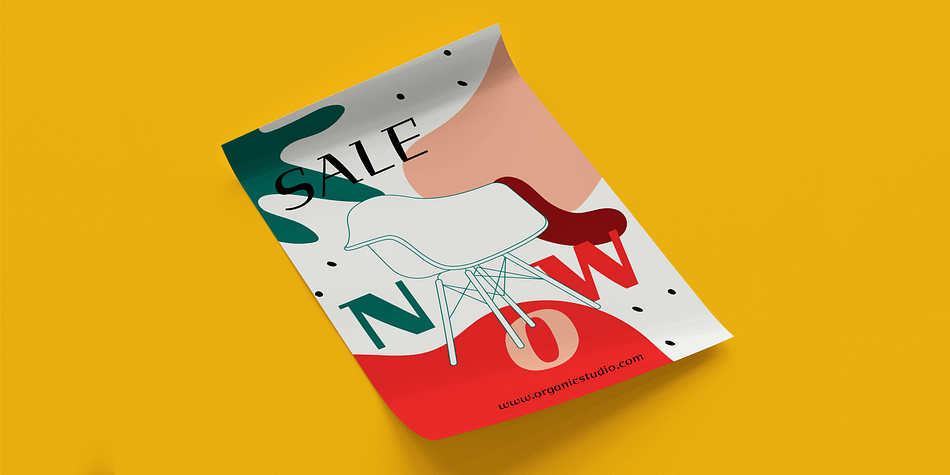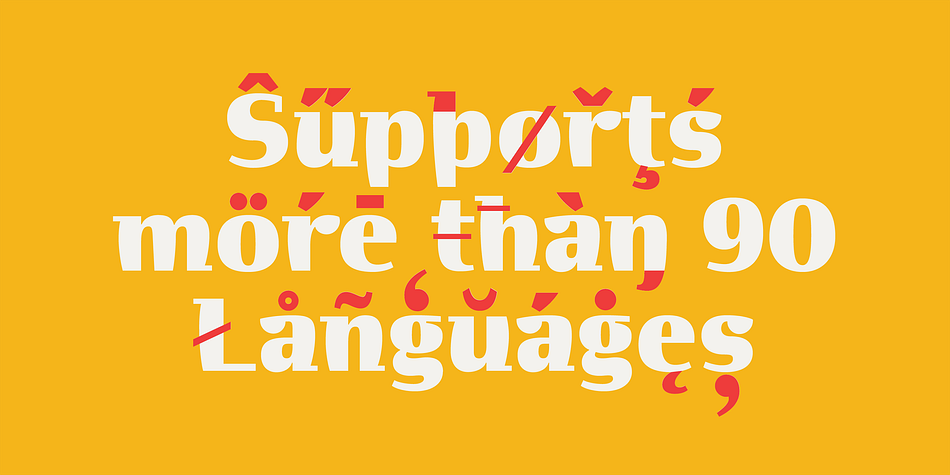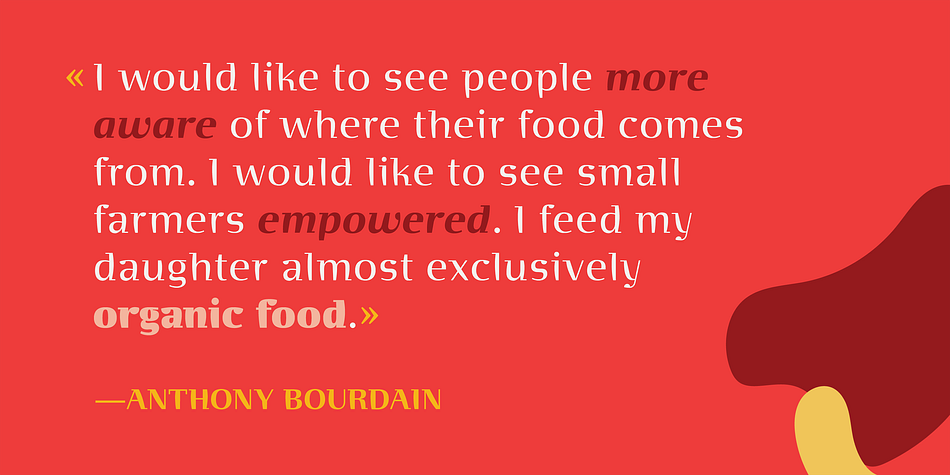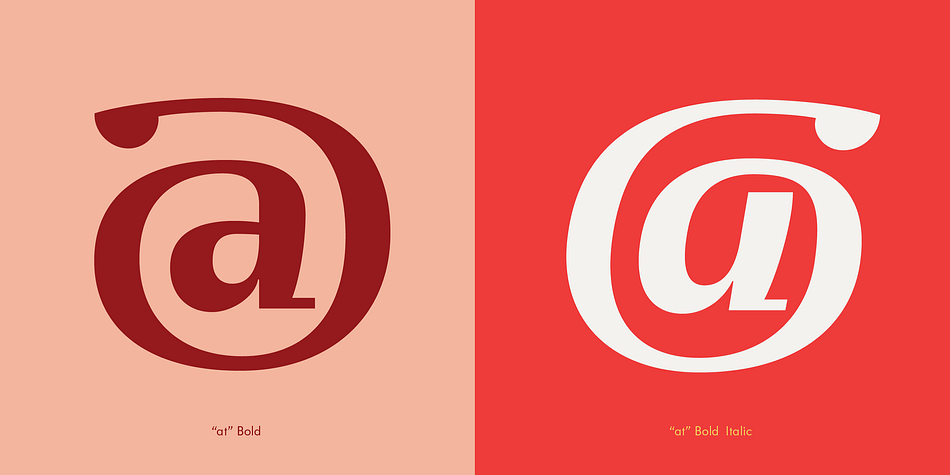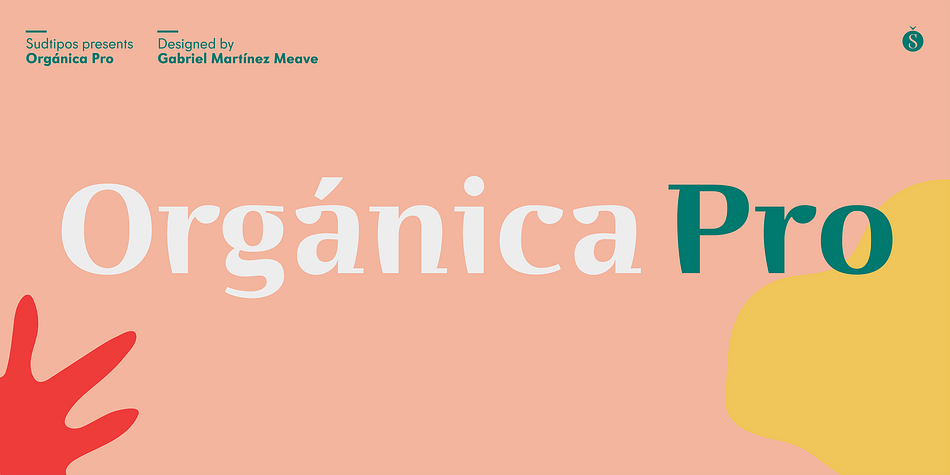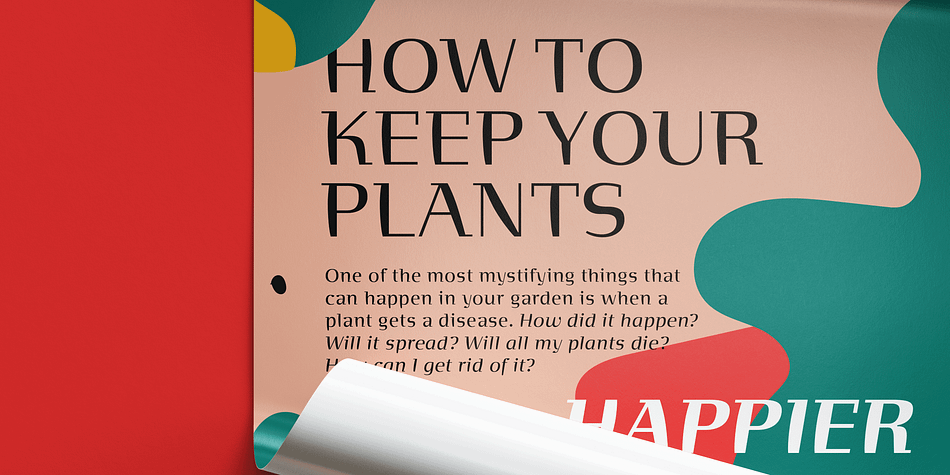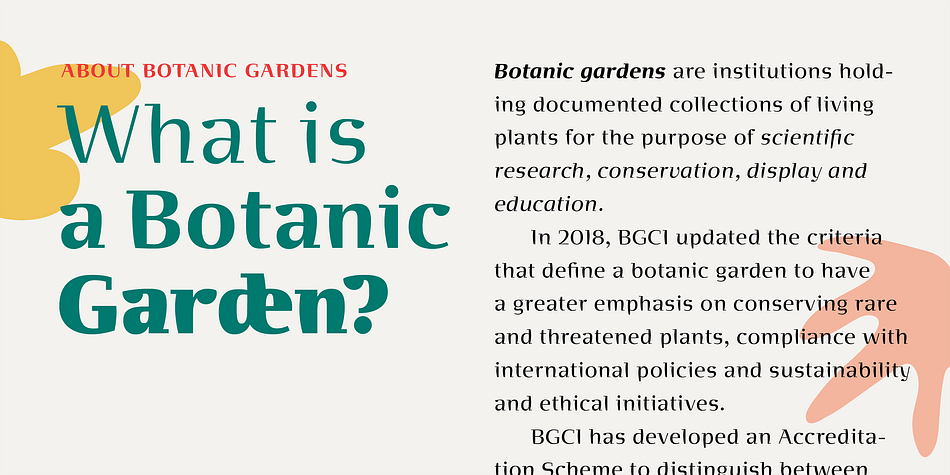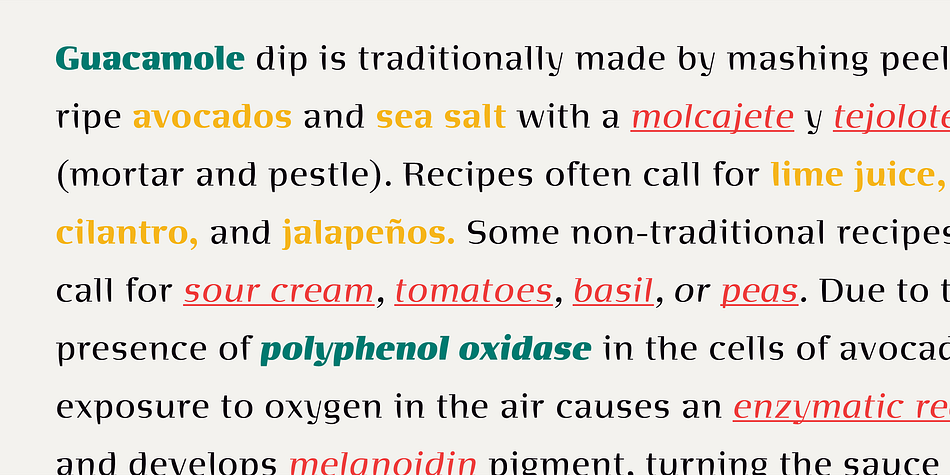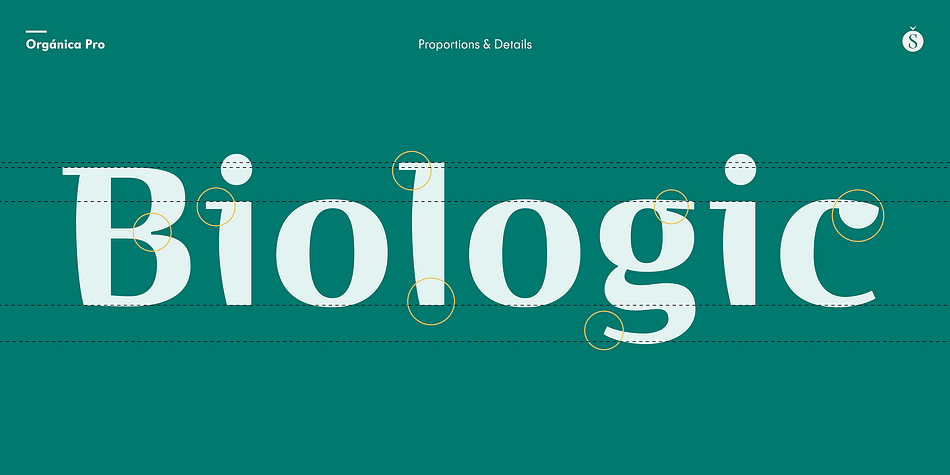
Organica Pro
Designed by Gabriel Meave, Organica Pro is a display serif font family. This typeface has six styles and was published by Sudtipos.
Just as most buildings are based on a structure of vertical columns, horizontal floors, square angles and the occasional arch, most Latin typefaces are designed within a largely uniform, static, alphabetic structure that provides a framework for playing with the style of the terminals —serif, sans-serif, slab-serif, flared, Tuscan— without significantly modifying the deep anatomy of the letters.
Orgánica Pro, by contrast, proposes a different structure: curvilinear, subtle and sophisticated, beyond the typical «sticks and balls» model. Organic anatomy, in one word; deliberately dynamic and asymmetrical. Over this radically distinct structure, terminals play a characteristic, expressive role that challenges easy classifications: Is this a serif or a sans font? A semi-serif? A semi-sans? For text or display? Modern or ultra-modern? Joke or serious?
All answers are valid.
Anyway, its six stylistic variants allow for multiple, diverse uses in text setting, headings and logotypes. In spite of —or perhaps thanks to— its innovative, uncommon structure, Orgánica’s personality is sweet to the eyes, wittily elegant and surprisingly legible.